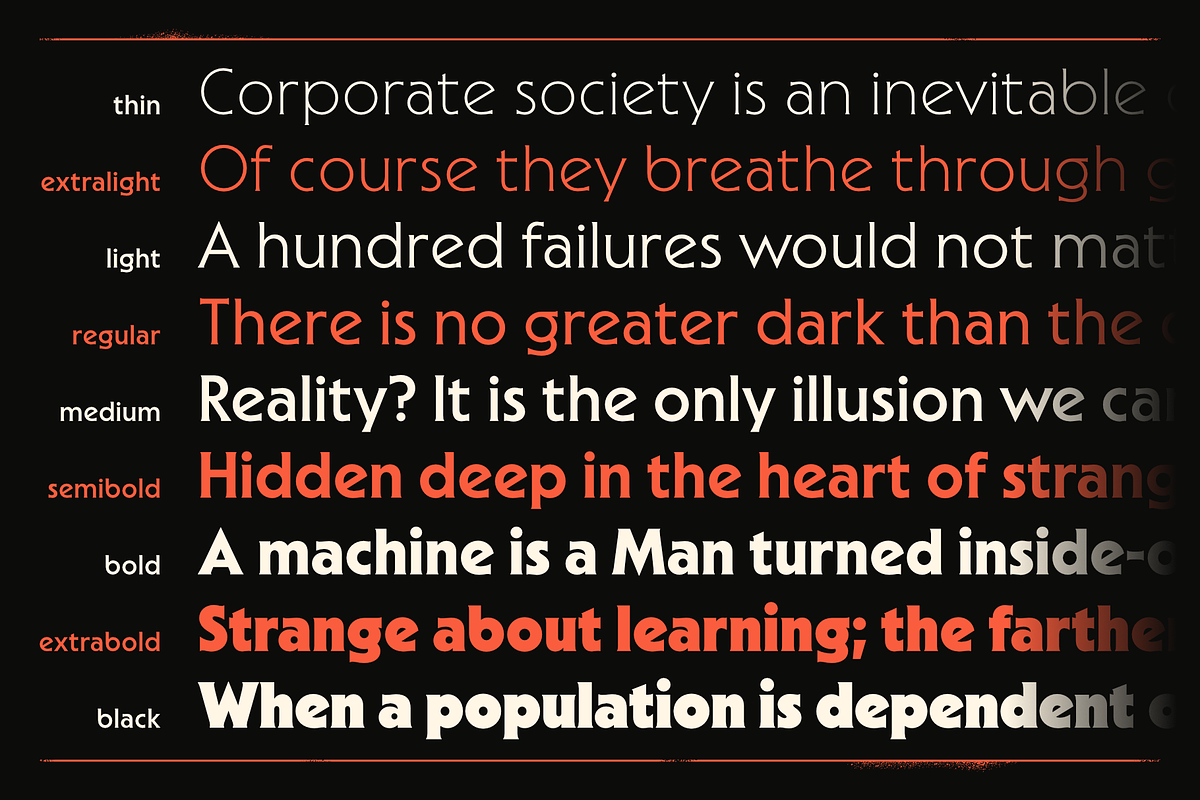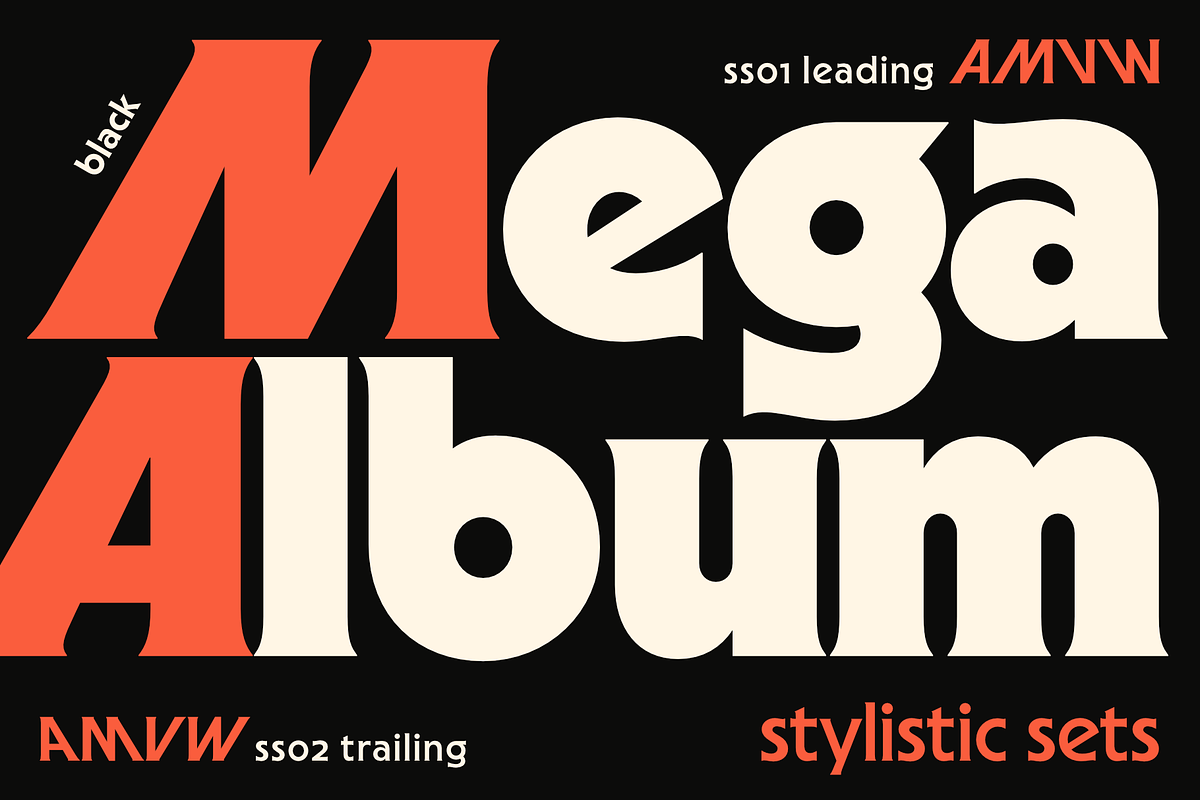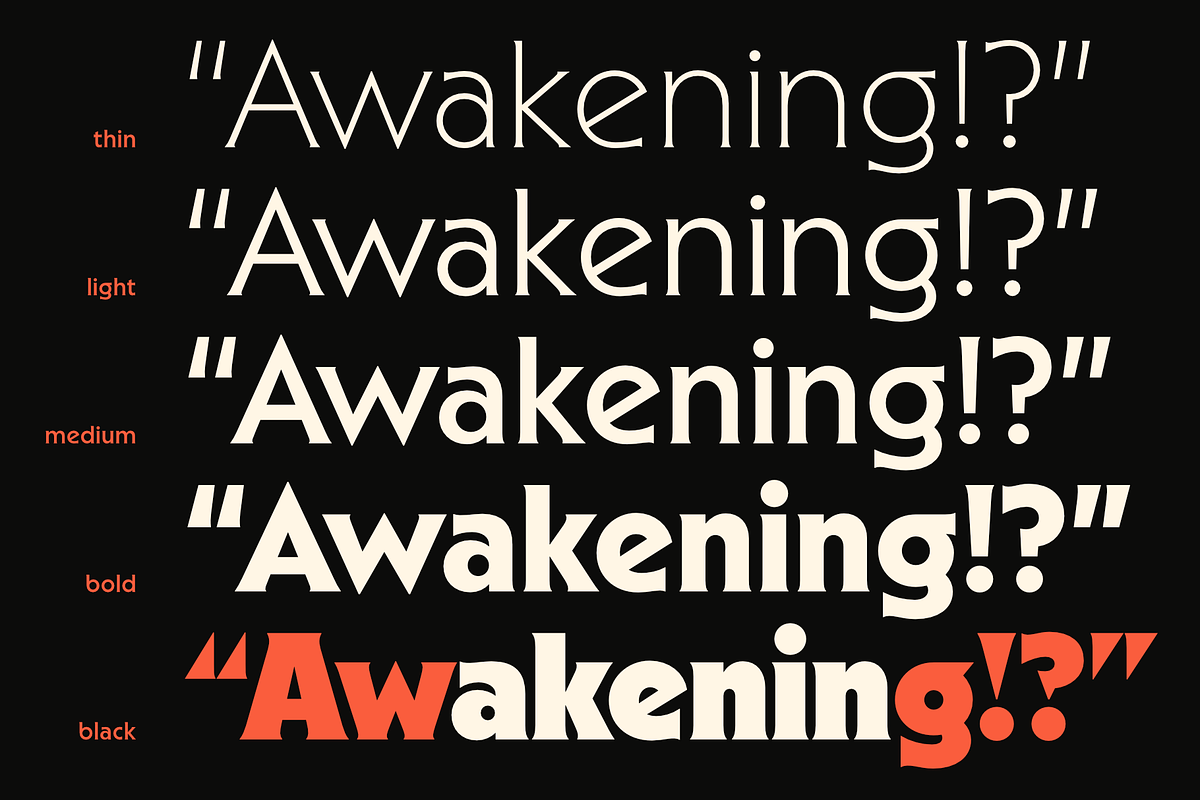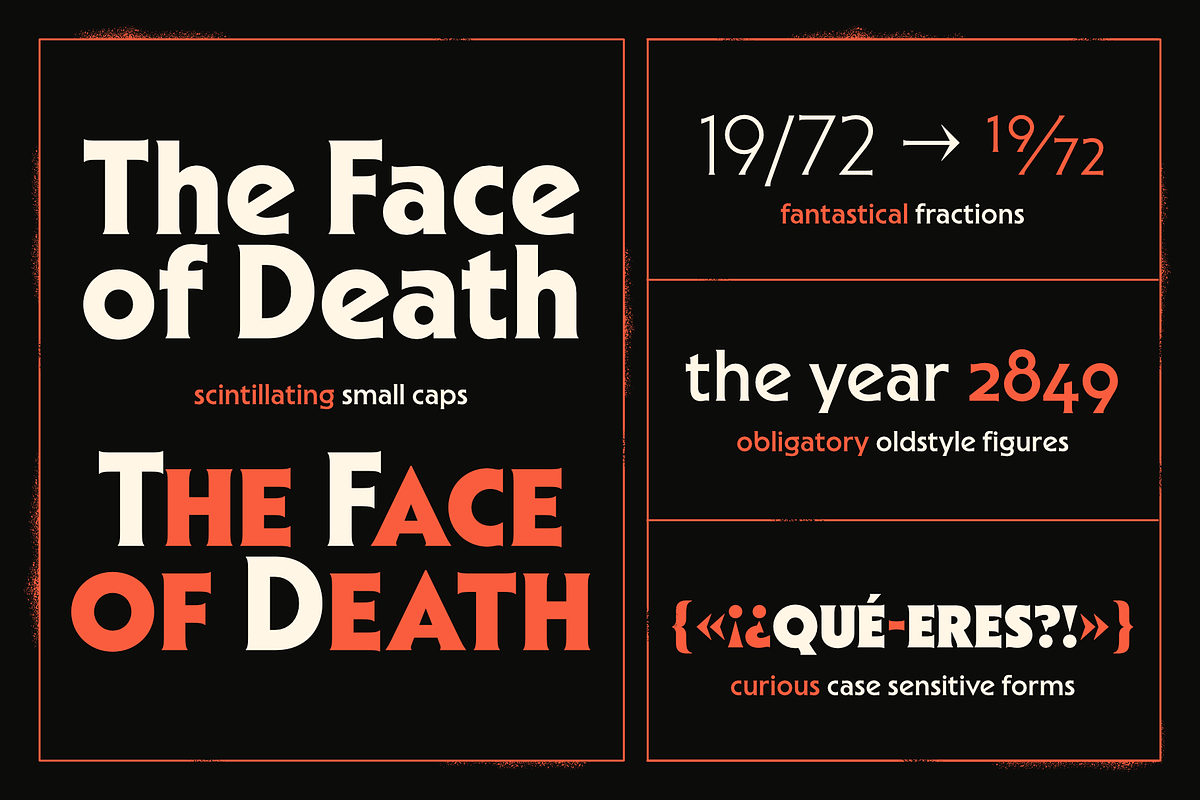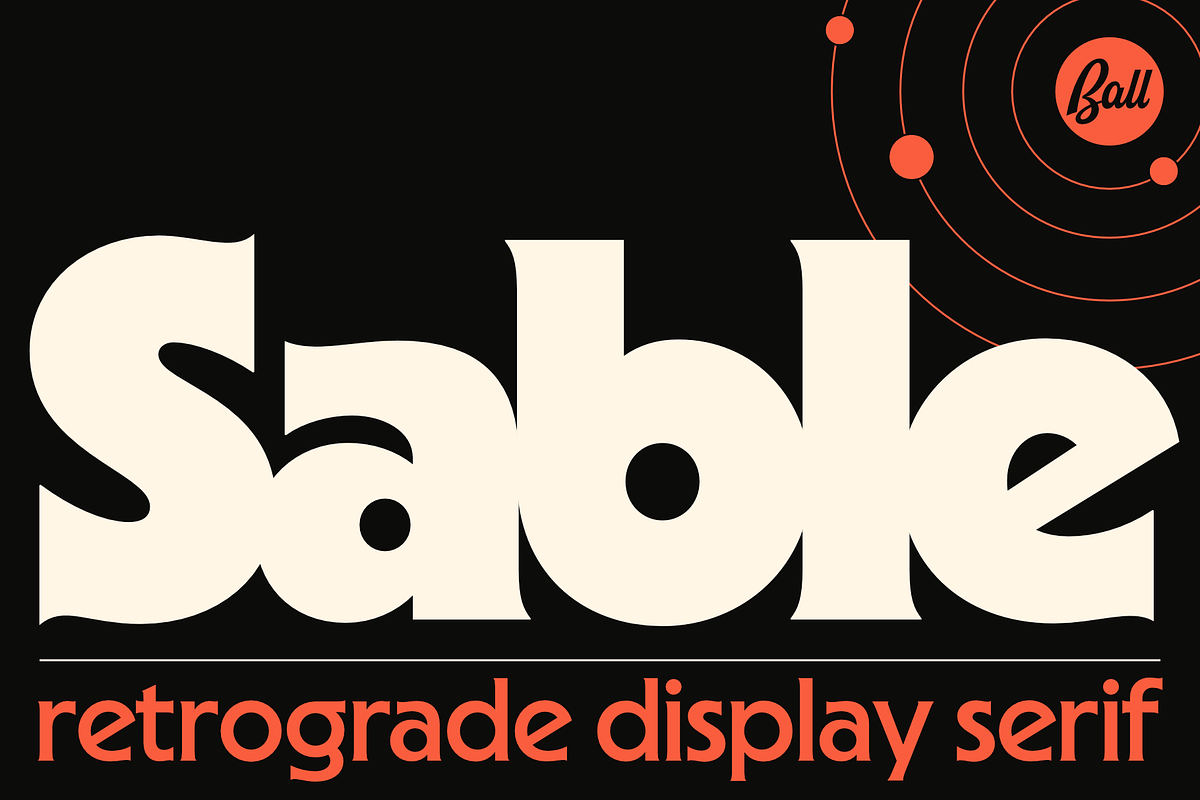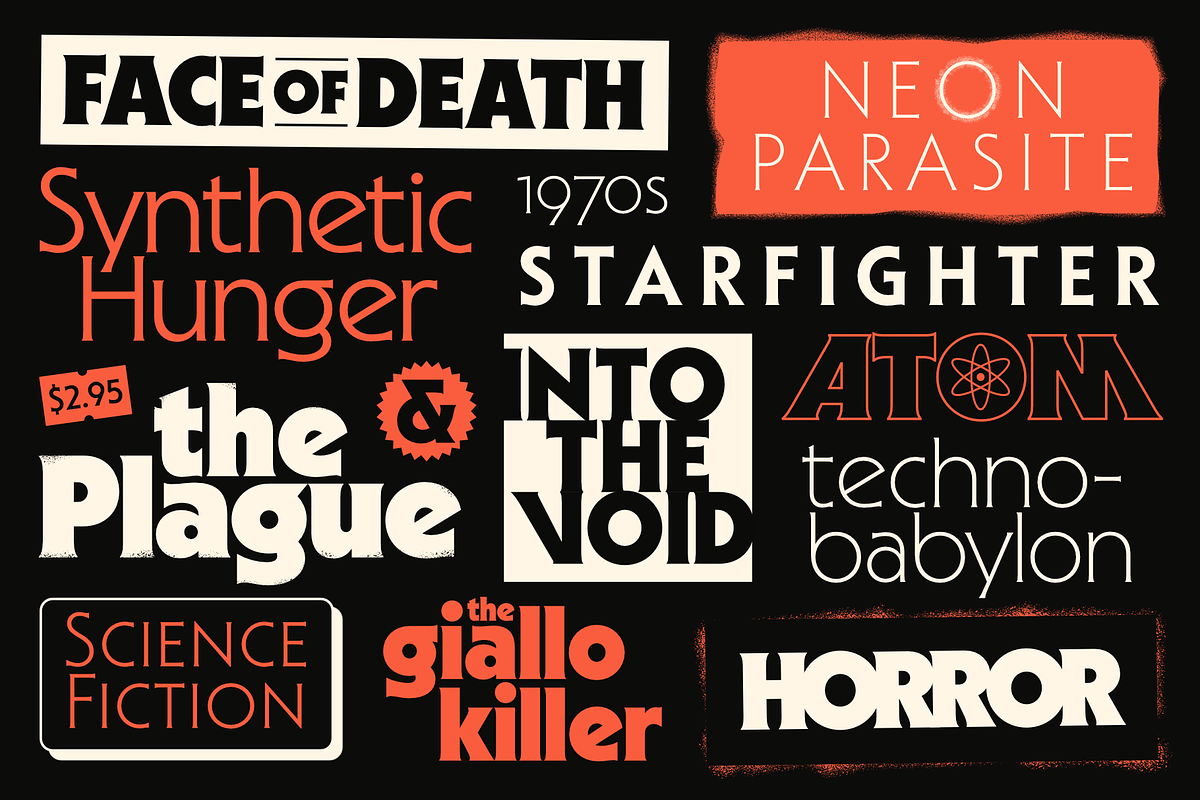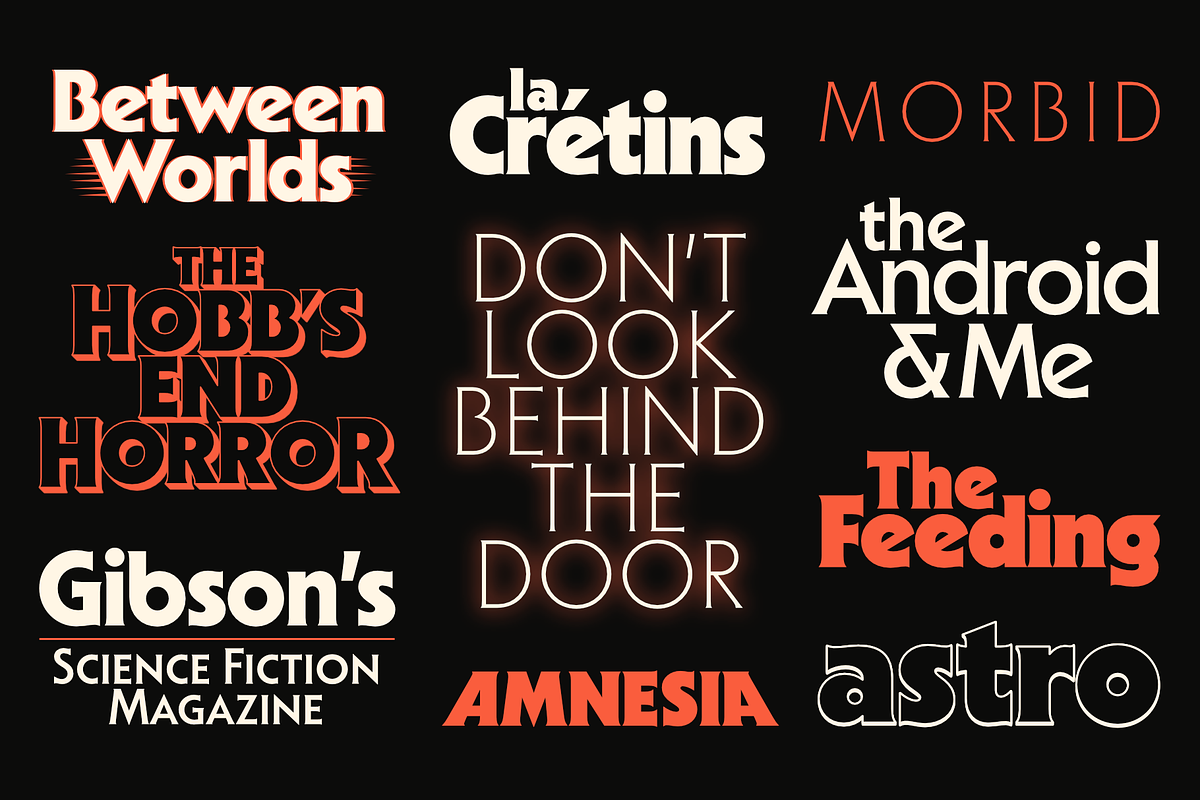
Sable Complete Family
Sable is a striking display family inspired by the hypnotic allure of mid-century science fiction and horror paperbacks. It channels the spirit of atomic-age adventure, cosmic dread, and pulp romance in equal measure. Balancing optimism with unease, Sable fuses modernist clarity with monstrous imagination. Its lighter cuts echo the disciplined geometry of early modernism, while the heavier weights lean into the theatrical drama and gothic menace of the pulp era.